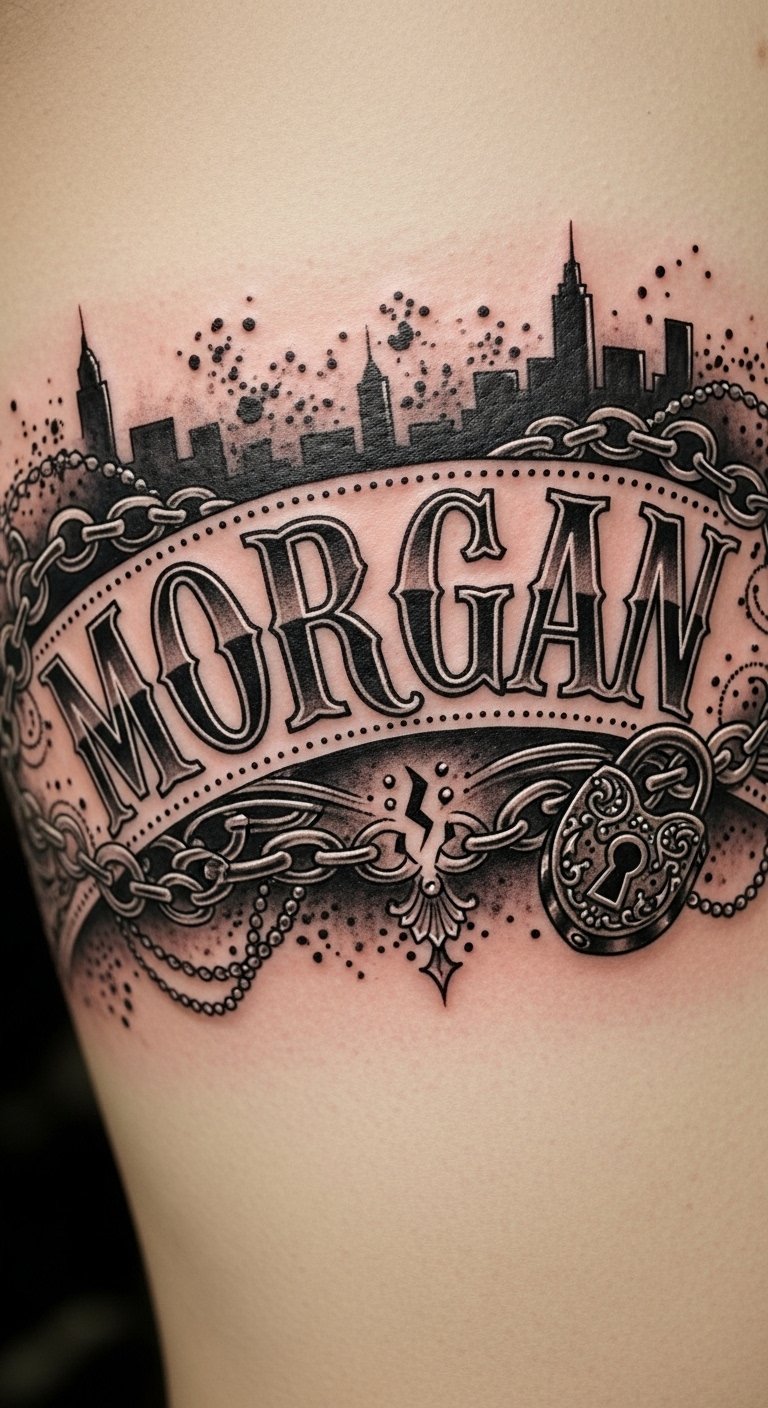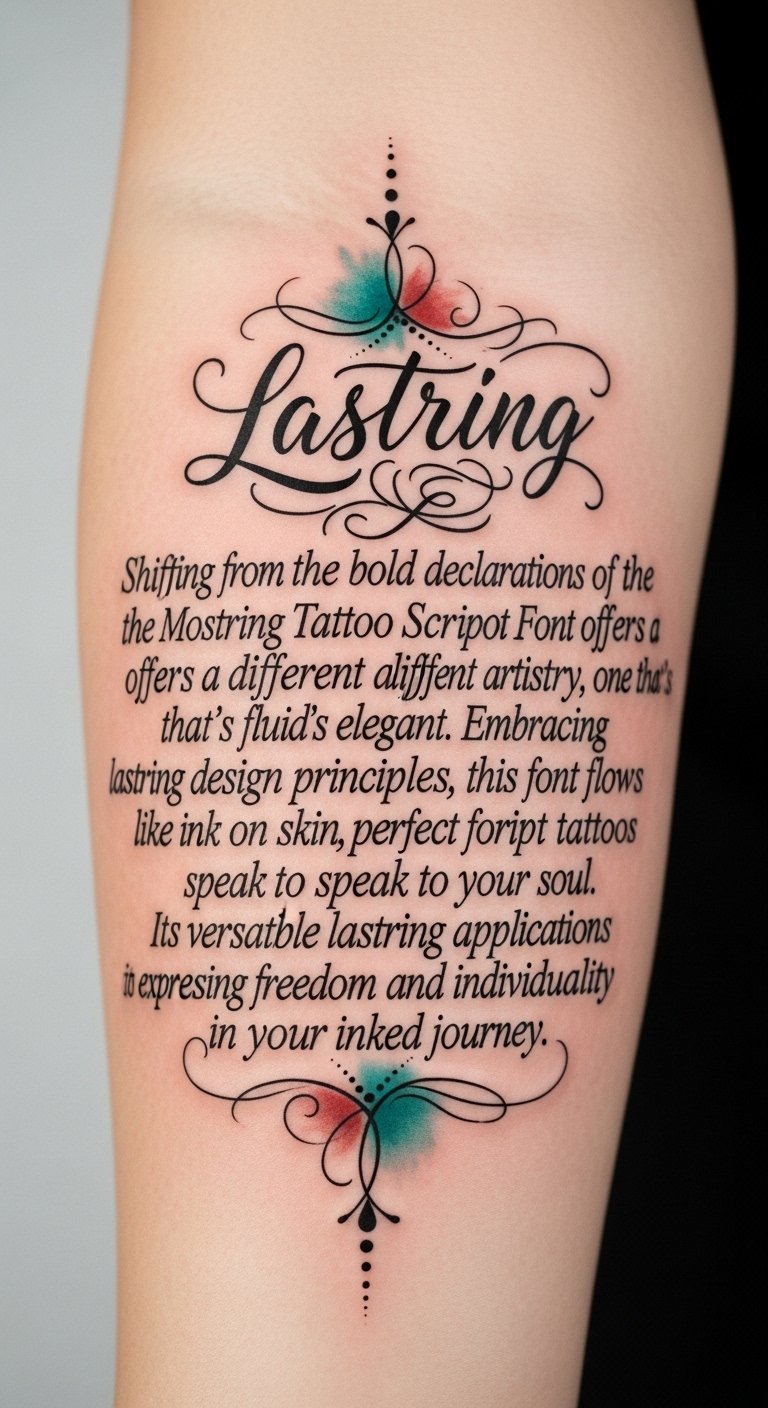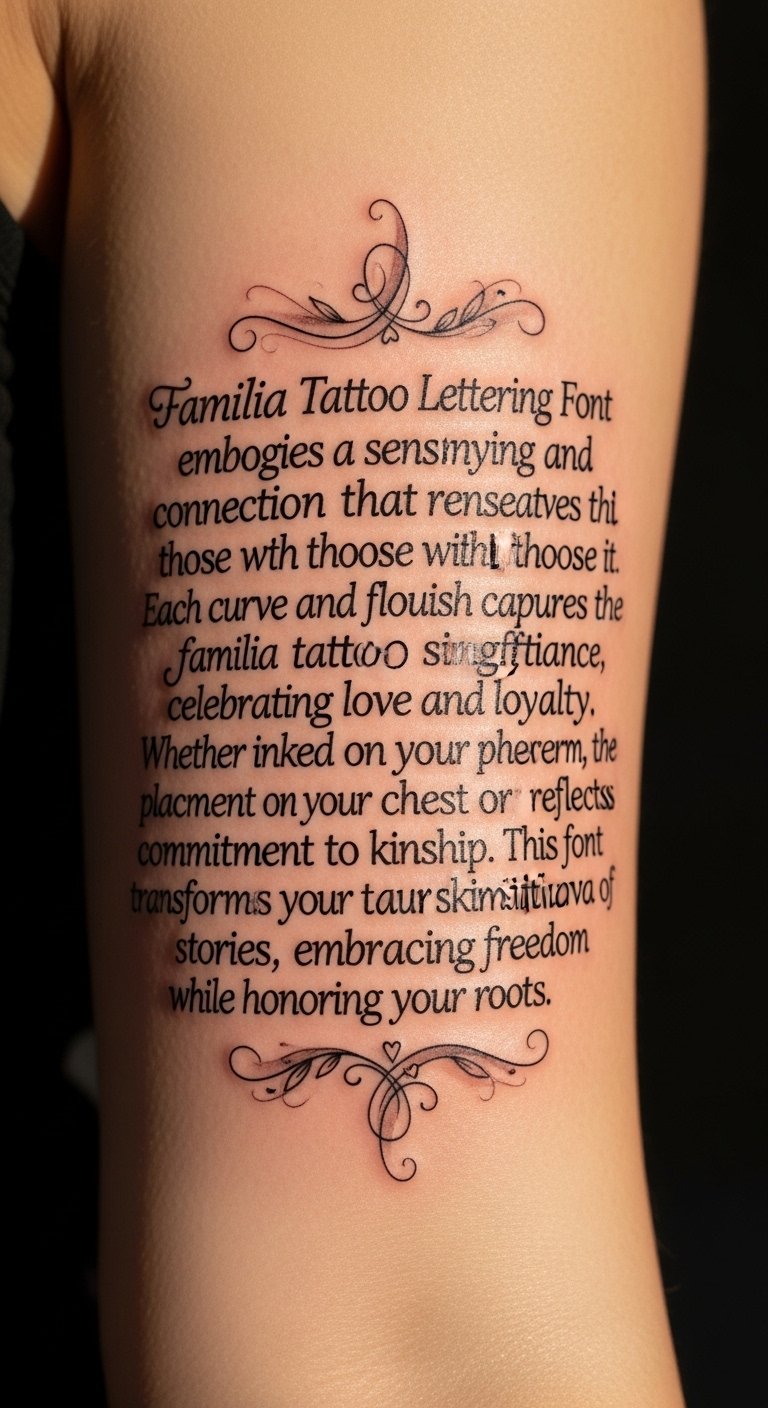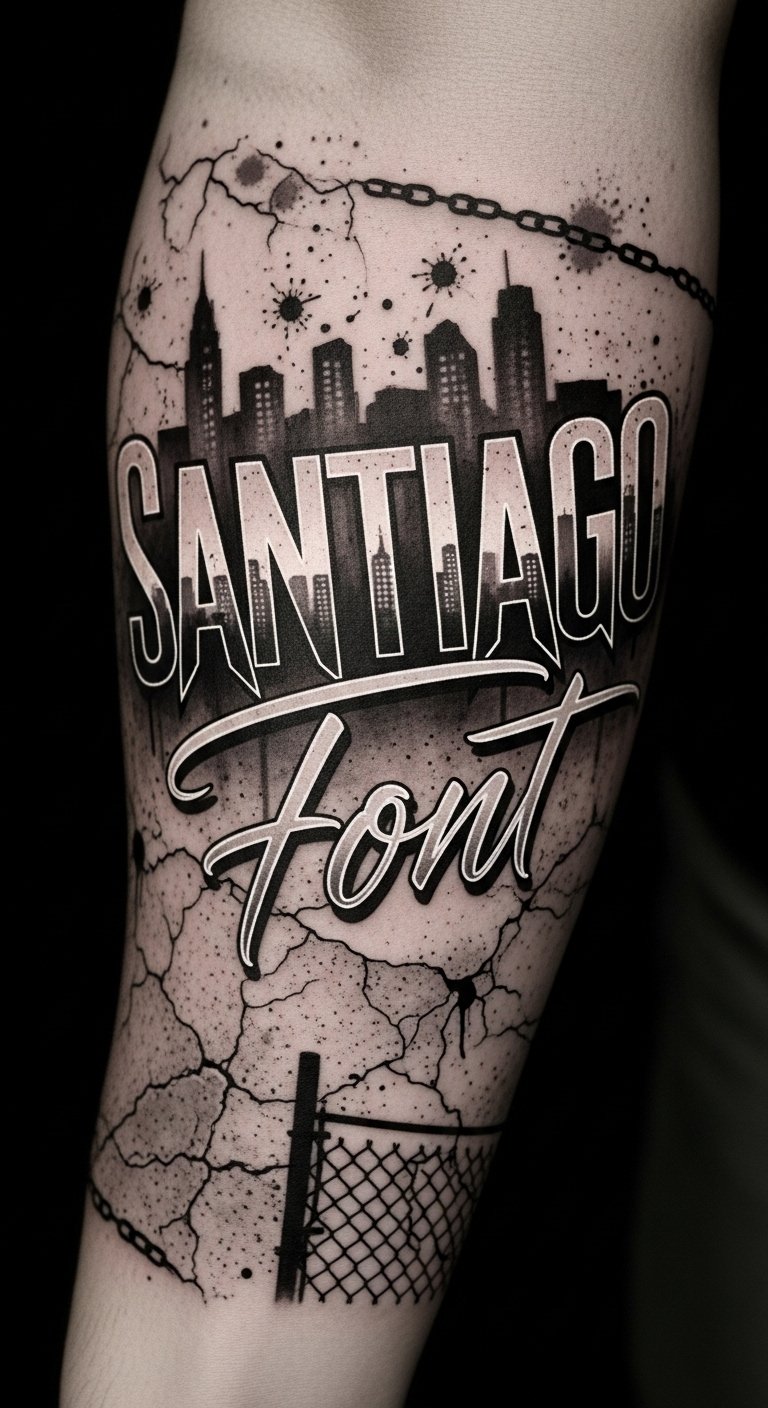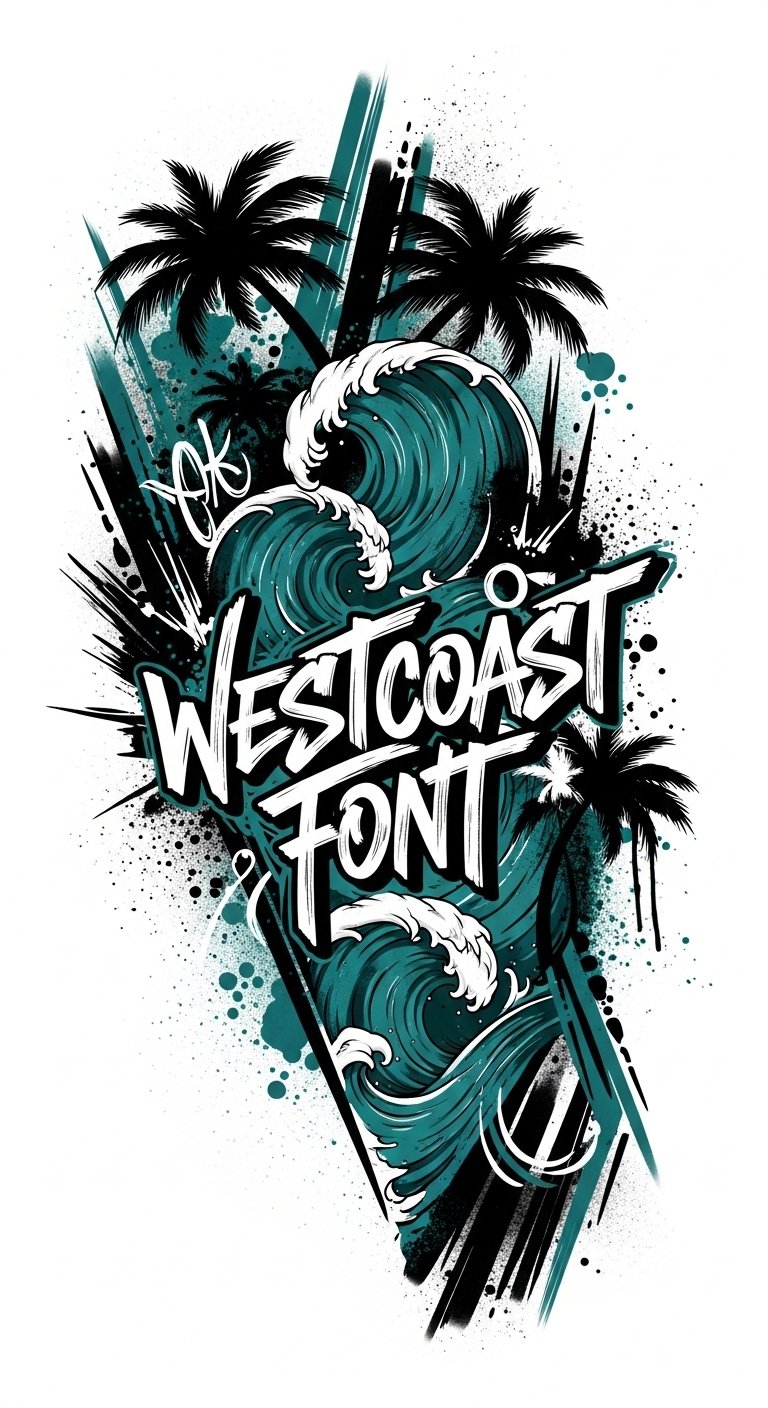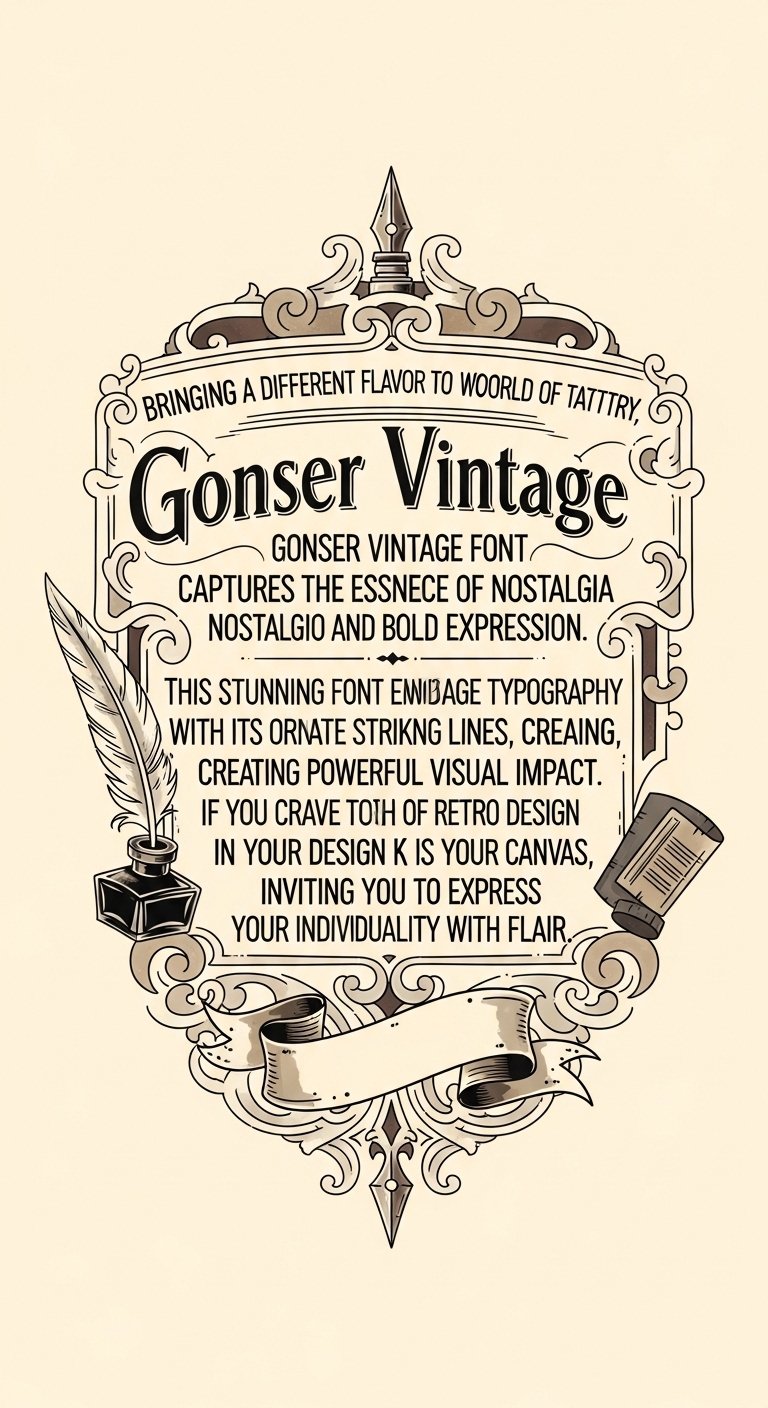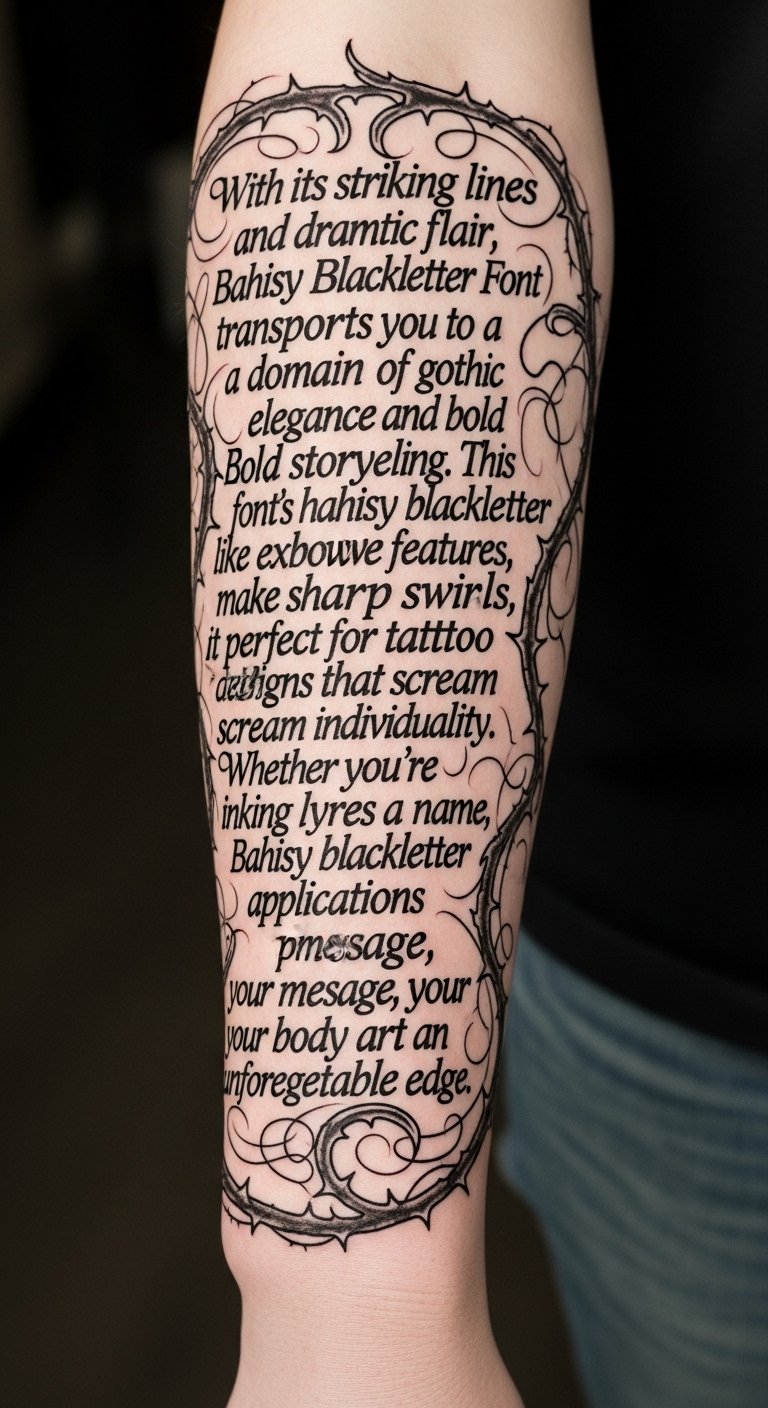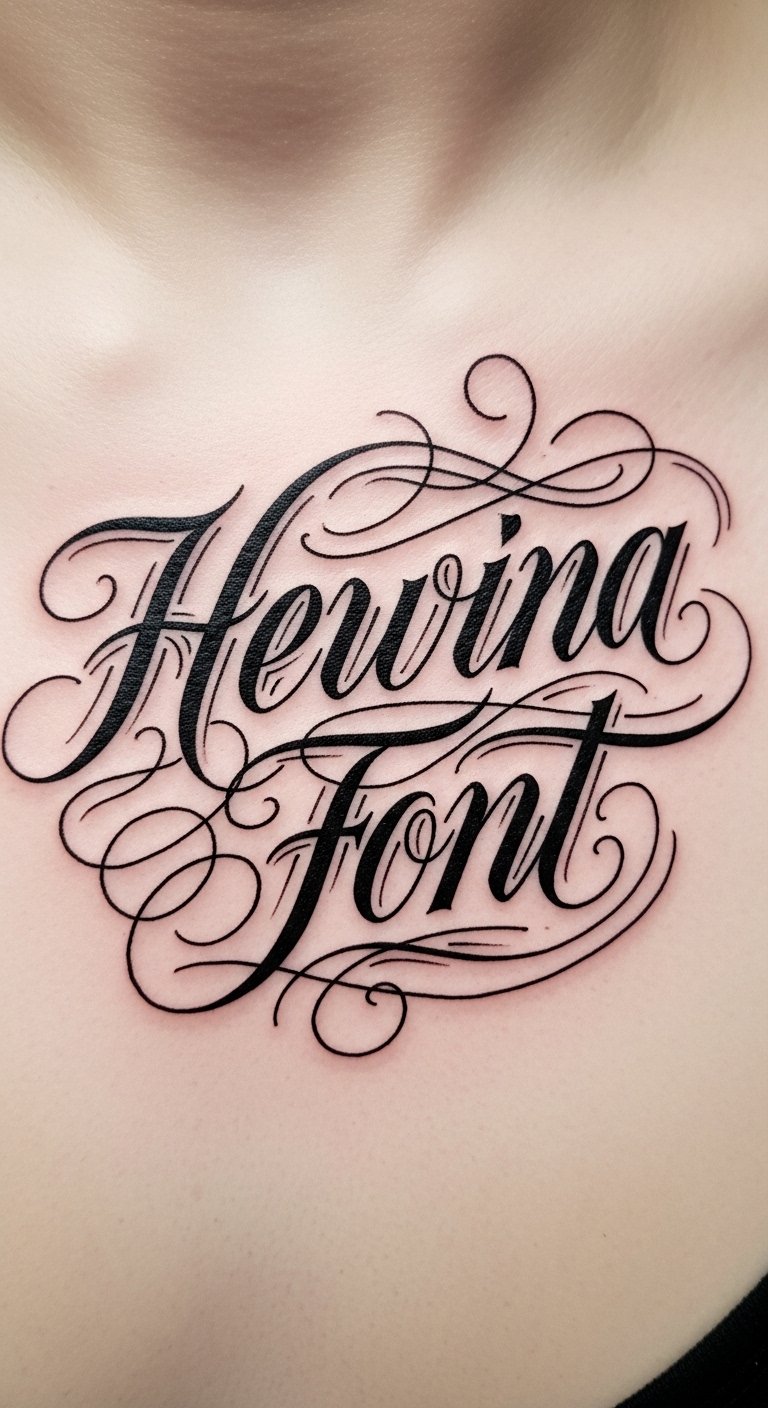
When you think about gangster tattoo fonts, you envision bold, rebellious lettering that commands attention. Each style tells a story, reflecting strength and individuality in every curve and angle. Imagine the impact of an intricately designed script or a fluid cursive that captures the essence of street culture. Explore the nuances of these fonts and discover how they can elevate your ink game to new heights, leaving a lasting impression. What will your next tattoo say?
Morgan Tattoo Font
The design uses the original Morgan Tattoo Font text placed over the ribs to follow natural contours. Chains and a breaking padlock echo the font’s themes of struggle for freedom, while filigree softens the edges to reflect elegance intertwined with rebellion.
Urban skyline shading and ink splatters bring grit and context. Dotwork adds depth and a handcrafted feel, and placement on the ribcage emphasizes intimacy and personal journey—ideal for someone marking a meaningful story of individuality and defiance.
Lastring Tattoo Script Font
Shifting from the bold declarations of the Morgan Tattoo Font, the Lastring Tattoo Script Font offers a different kind of artistry, one that’s fluid and elegant.
Embracing lastring design principles, this font flows like ink on skin, perfect for script tattoos that speak to your soul. Its versatile lastring font applications make it ideal for expressing freedom and individuality in your inked journey.
The design uses graceful, elongated strokes and soft swashes to convey movement and personal evolution; the watercolor wash adds emotional depth—teal for calm rebirth, auburn for warmth and passion—while dotwork grounds the piece with quiet resilience.
Placing it along the forearm or ribcage allows the script to follow the body’s natural lines, creating an intimate, readable piece that feels like a personal mantra and a visible emblem of freedom and uniqueness.
Familia Tattoo Lettering Font
The design uses the quoted text itself as the central visual element, with flowing script to emphasize intimacy and continuity; vine and heart motifs weave through the lines to signify growth and emotional bonds. Placing it across the upper chest centers the declaration over the heart for familial devotion, while a forearm placement offers visible commitment and conversation-starting presence. The overall effect is both intimate and proud, balancing delicate ornamentation with bold lettering to convey loyalty, personal history, and an open embrace of one’s roots.
Santiago Font
Santiago Font captures the essence of urban grit and resilient spirit, making it a popular choice for those who want their tattoos to tell a story.
With a rich Santiago font history rooted in street culture, it boasts various Santiago font styles, from bold, sharp edges to fluid, cursive designs. Each style reflects a unique narrative, allowing you to express your freedom and individuality through ink.
The design symbolizes resilience and personal narrative—sharp block letters for strength and cursive for fluid identity—while the skyline and concrete texture ground the piece in urban roots; emotionally it balances defiance and vulnerability.
It fits a forearm placement to read along the natural lines of the arm, allowing visibility and privacy depending on orientation.
Westcoast Font
The tattoo design draws directly from the Westcoast Font passage, translating its blend of beach relaxation and urban grit into visual elements—waves and palms for coastal life, graffiti lettering and ink splashes for raw city energy—so the design reads as a celebration of freedom and creativity.
Emotionally it balances calm and intensity: the flowing curves convey ease while bold strokes express defiant self-expression.
Best placed along the forearm, shoulder, or chest where the diagonal composition can follow natural muscle lines, it adapts well to both small and large formats and ages gracefully with strong, vector-style outlines.
Gonser Vintage Font
This design pairs the full original phrasing with decorative vintage ornamentation to emphasize nostalgia, craftsmanship, and personal expression; the ornate curves and flourishes echo the font’s character while the quill and ink bottle symbolize artistic creation and individuality.
Emotionally it reads as proud and expressive, a declaration of identity through style rather than words alone.
Best placed on a forearm, upper chest, or along the ribcage where the lines can flow naturally with movement, the piece works at a medium size so the text remains legible while the surrounding details provide depth and visual balance.
Bahisy Blackletter Font
The design uses the original text as the central visual element, with each phrase composed in dense Bahisy Blackletter to convey authority and drama; the thorned vines and angular flourishes mirror the font’s sharp angles and elaborate swirls, enhancing themes of individuality and bold storytelling.
Emotionally, the piece balances intensity and elegance—dark, assertive strokes express strength while ornamental filigree adds refinement—inviting personal identification with lyrics or names inked in the same style.